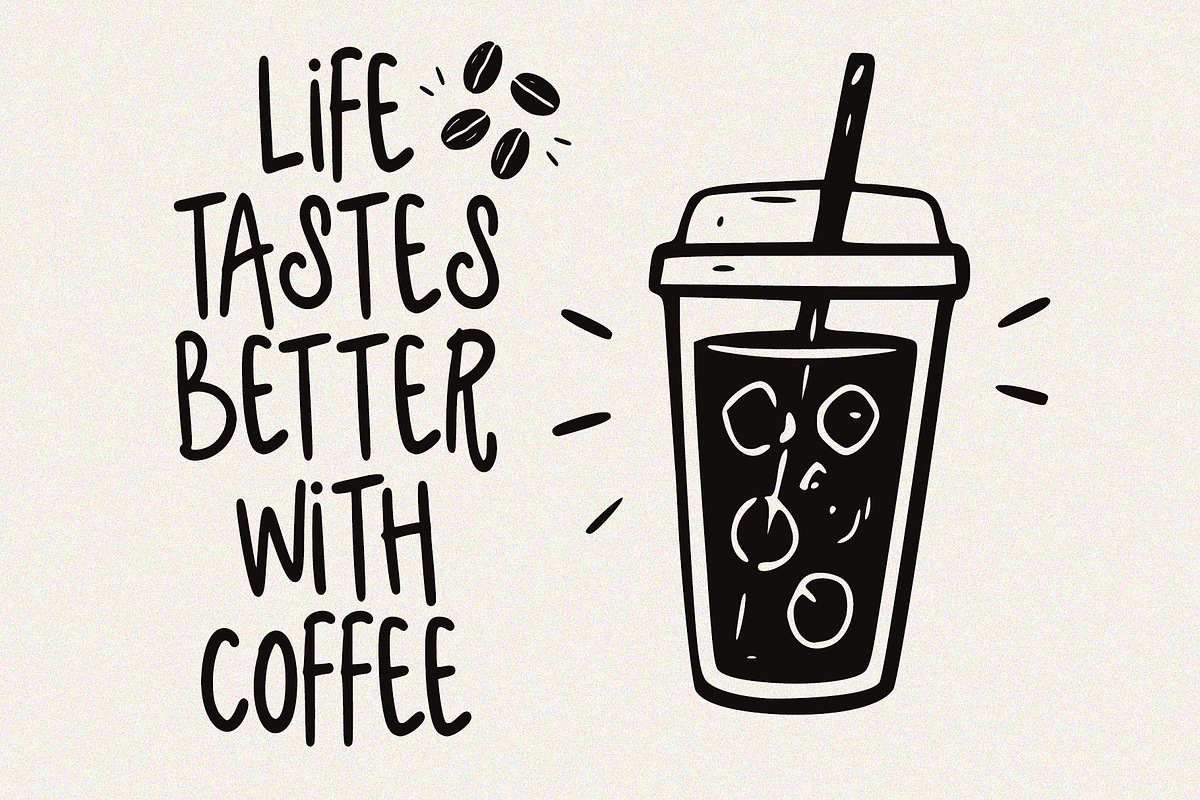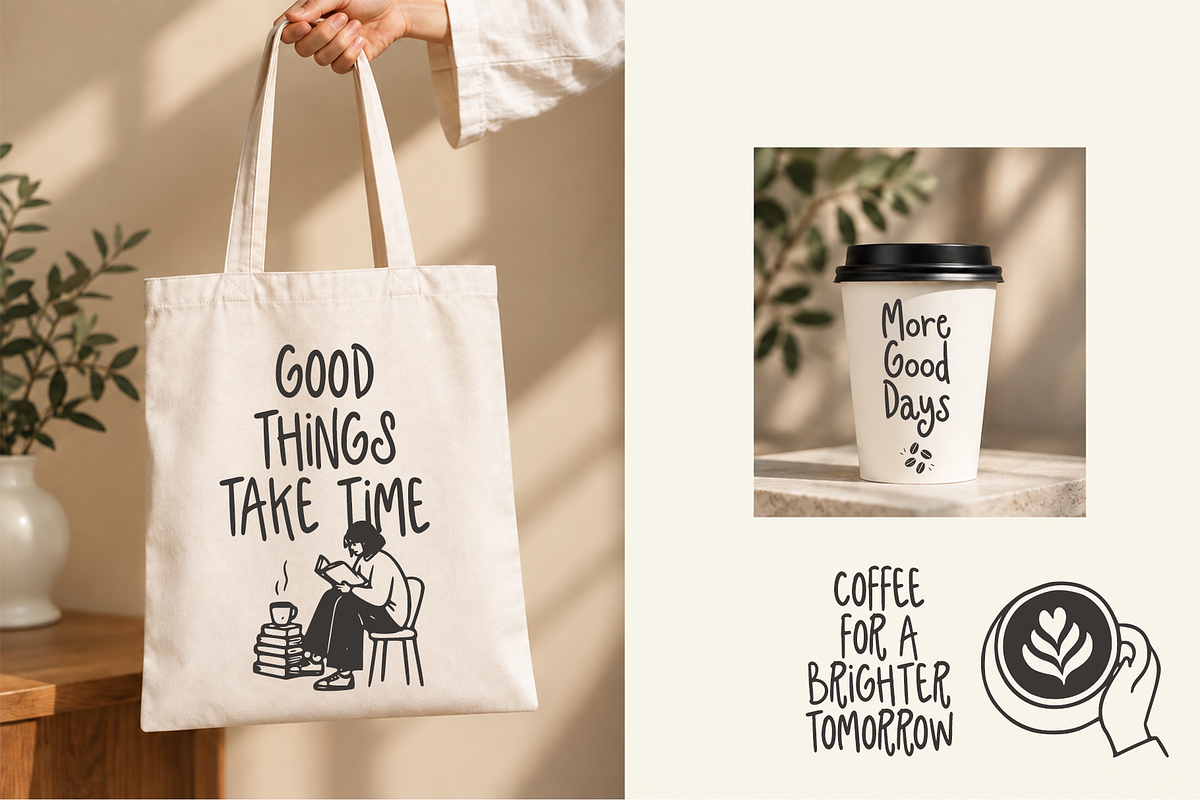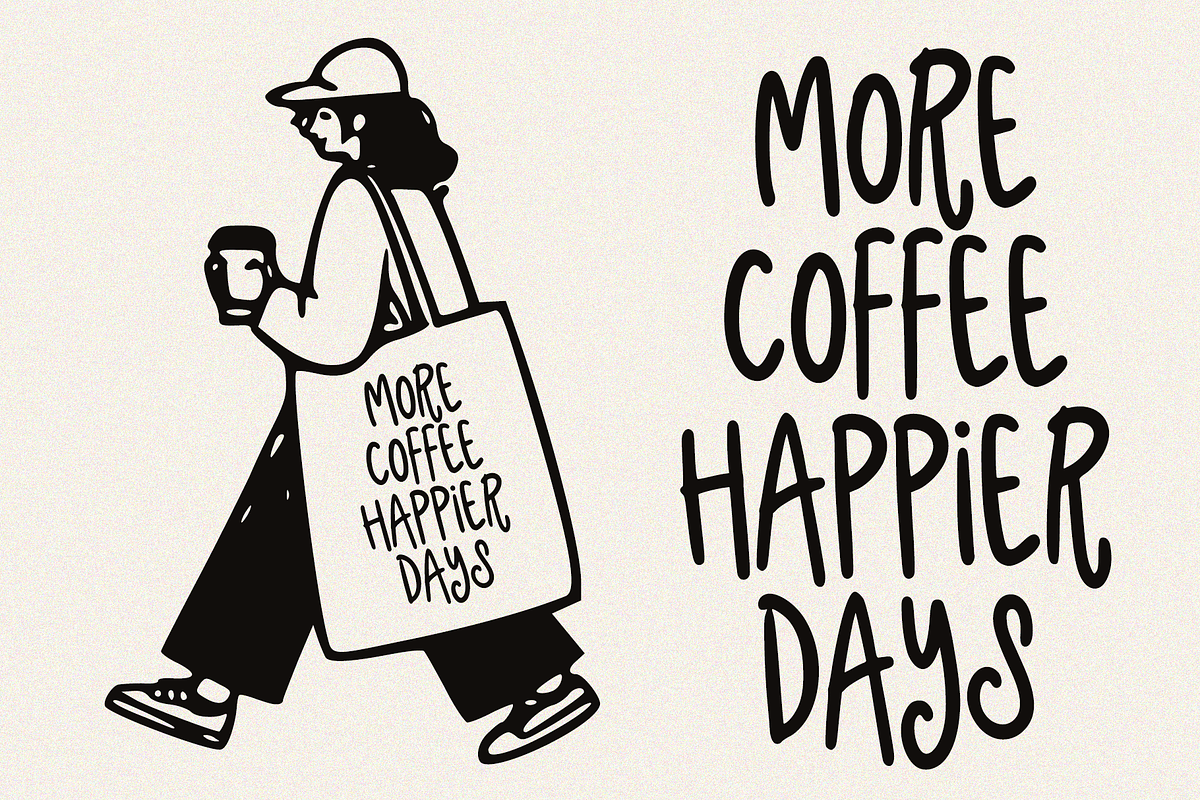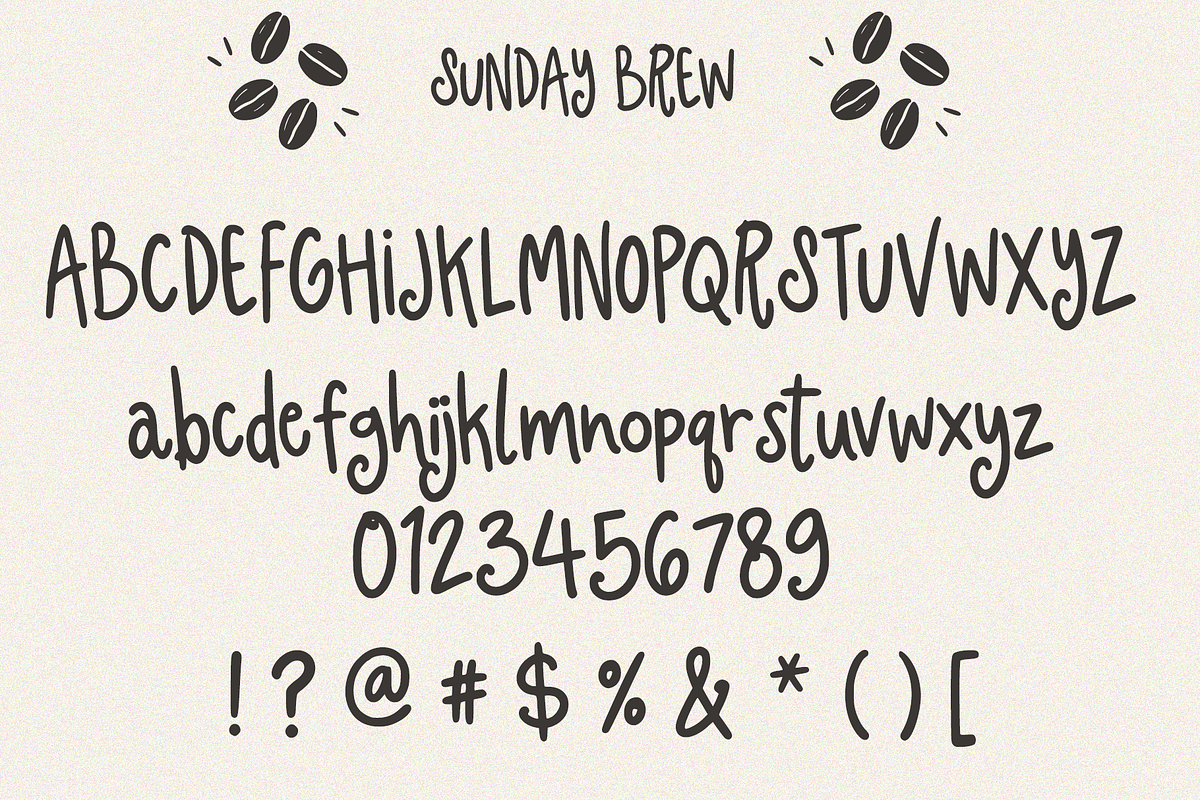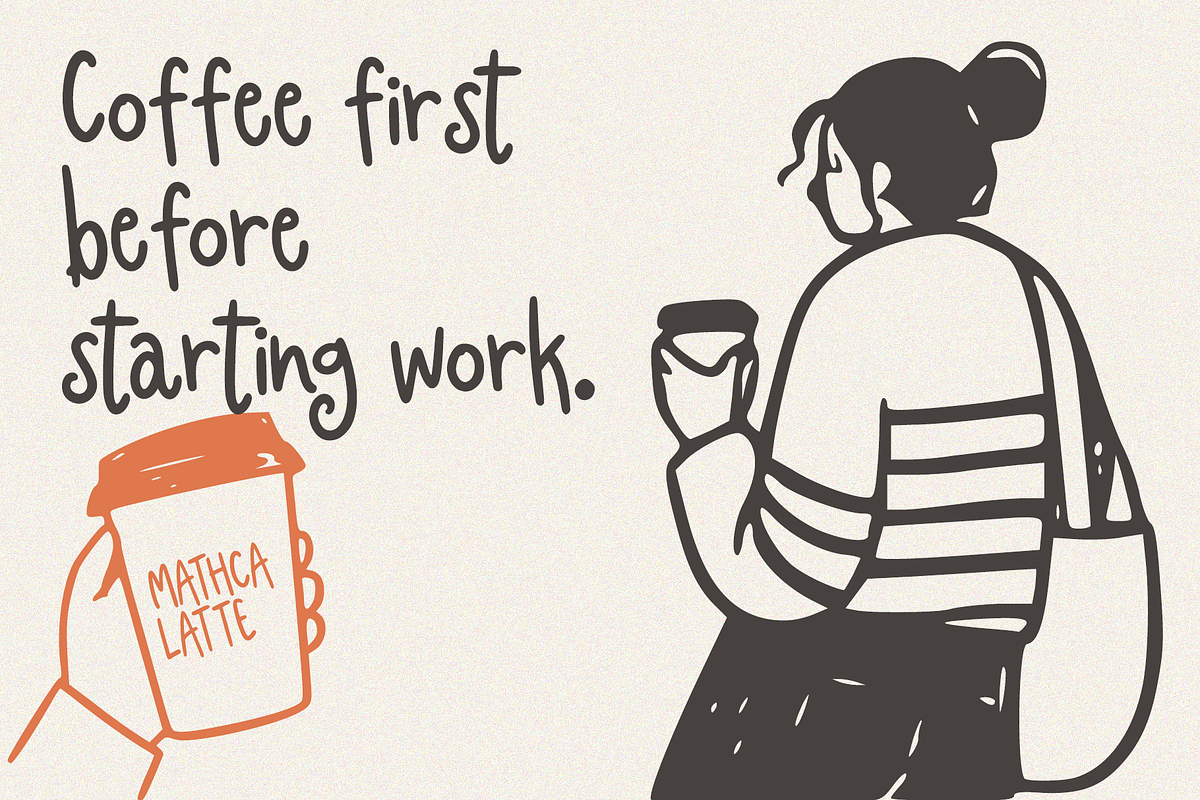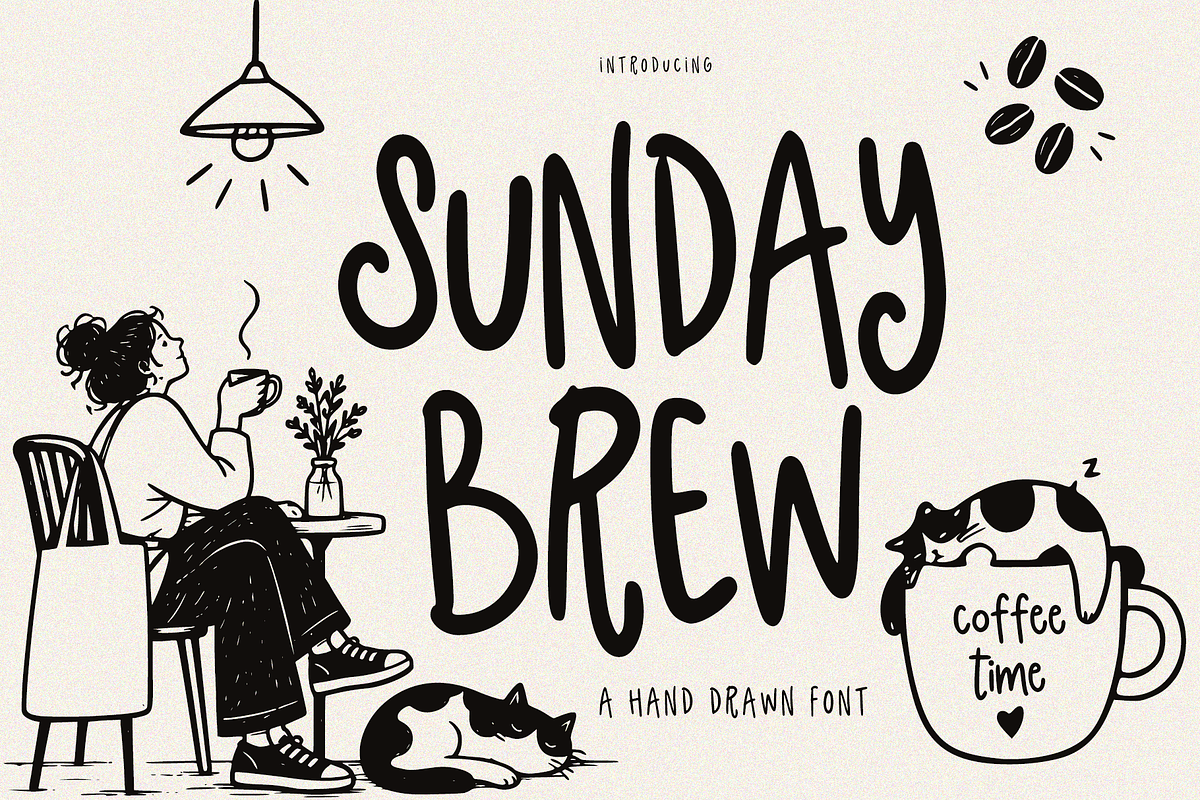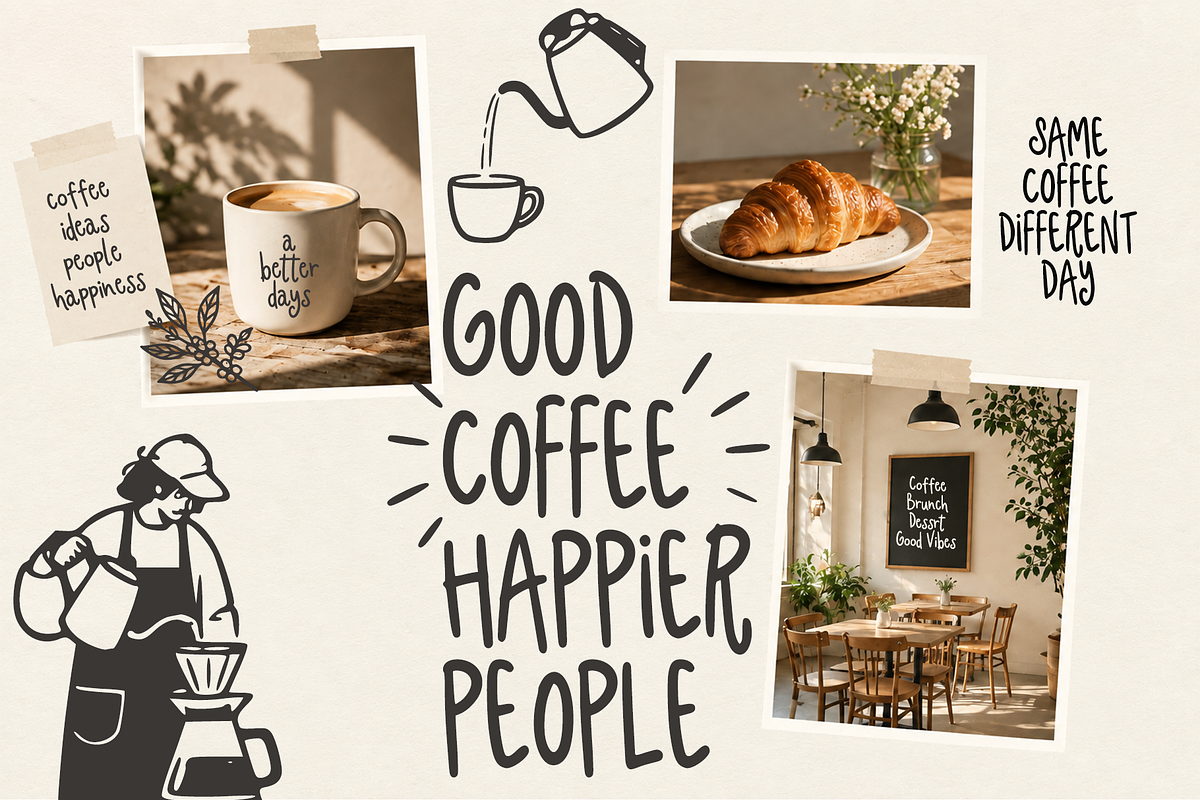
Sunday Brew Handwritten Font
Sunday Brew is a charming hand-drawn display font with a playful, organic character and a warm café-inspired feel. Its bold, slightly irregular letterforms create a natural handmade appearance while maintaining strong readability and visual impact.
Perfect for projects that need a cozy, cheerful, and creative touch. The casual handwritten style works beautifully for coffee shop branding, café menus, packaging, apparel, posters, stickers, social media graphics, quotes, stationery, labels, and lifestyle designs.
The imperfect curves and expressive strokes give each word a friendly handmade personality, making it especially suitable for designs with a relaxed, artistic, and welcoming atmosphere.